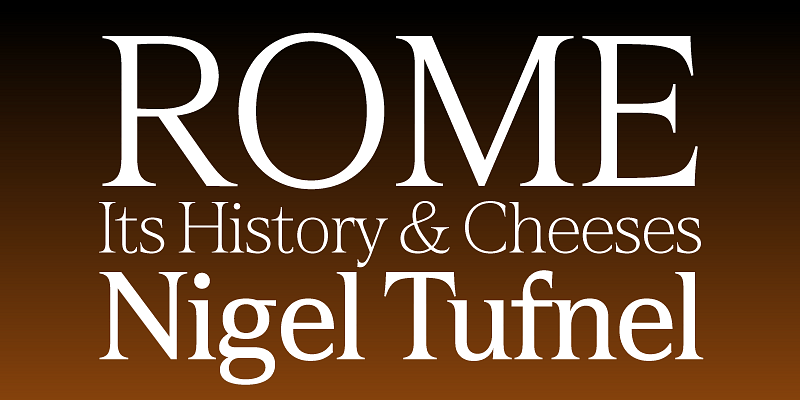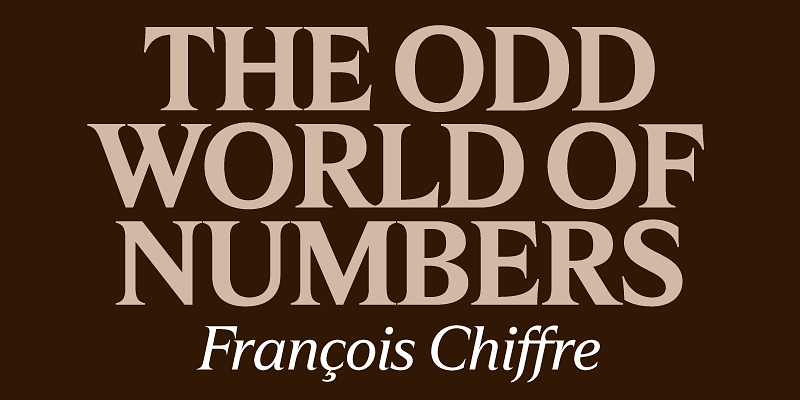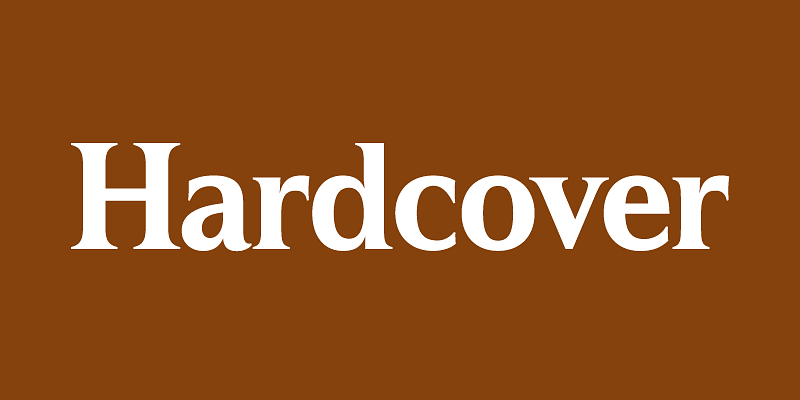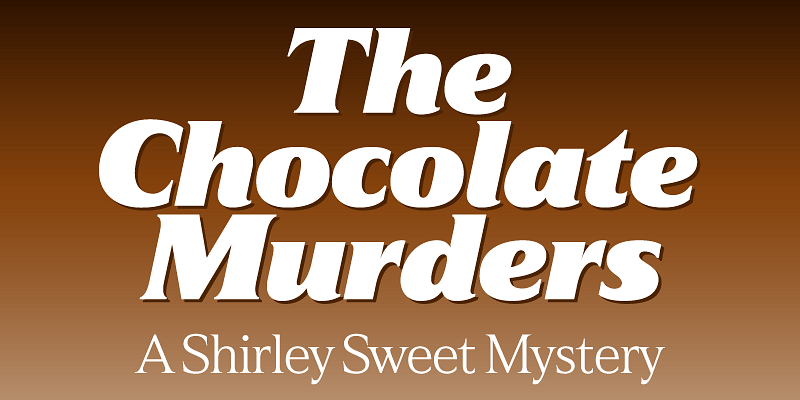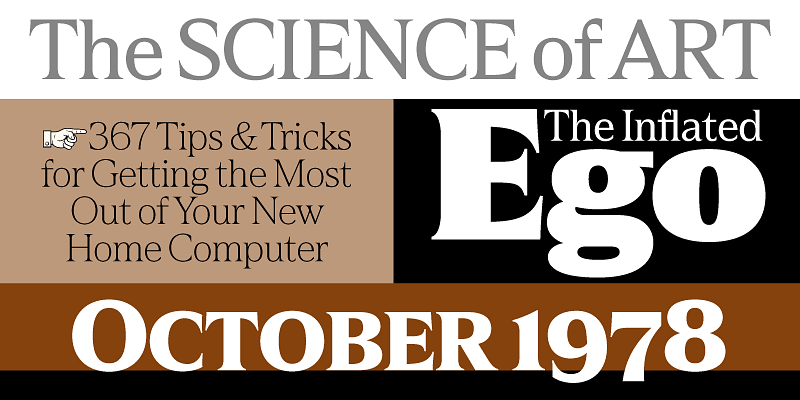
“Hardcover (2025) is an elegant serif typeface intended for display use. It was one of my earliest typeface ideas, dating back to a sketch I did while working at one of my first design jobs in 1978, inspired by the slick lettering I’d seen on mass-market book covers. The capitals follow a classic roman model, reminiscent of Times New Roman, but with more modern, simplified forms. The lowercase and figures are constructed similar to the capitals, avoiding features typically associated with lowercase such as ball terminals and angled serifs. Although it may be used in short blocks of text, Hardcover is designed to be used large. It is avilable as a Variable font family, Roman and Italic, and includes small caps and a set of dingbats.